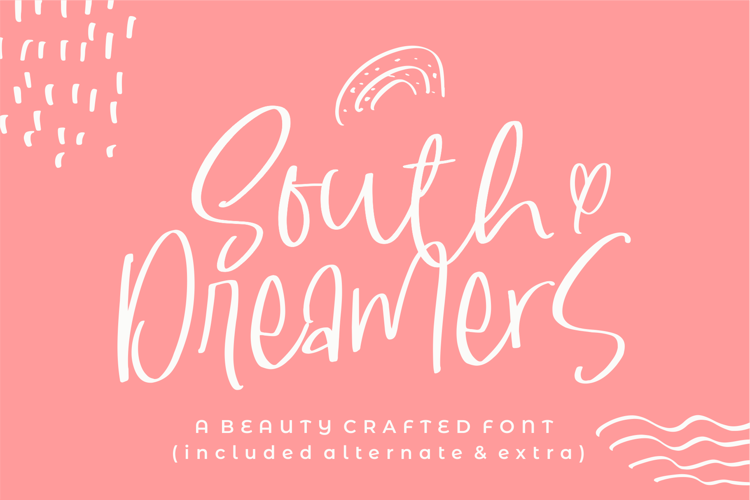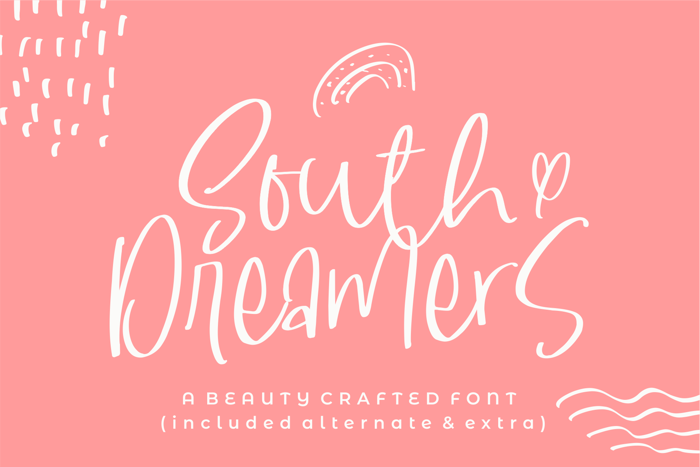
South Dreamers Font
About South Dreamers Font
South Dreamers is a modern handwritten script font with Alternate Glyphs and Extra
This font is perfect for quotes, shirt designs, mug designs, branding, overlay image, blogs, logos, invitations, and more!
Included Multilanguage Support and Ligatures (ii ll mm nn oo rr ss tt aa ai al
ao ar as ir l_l r_r o_o s_s t_t)